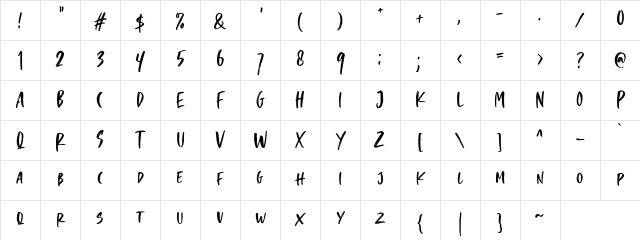
Complete Crooked Hooks DEMO Regular glyph index. Displaying only characters natively supported by Crooked Hooks DEMO Regular font.
Crooked Hooks DEMO is a composed and adaptable typeface that performs quietly and consistently across a wide range of design contexts.